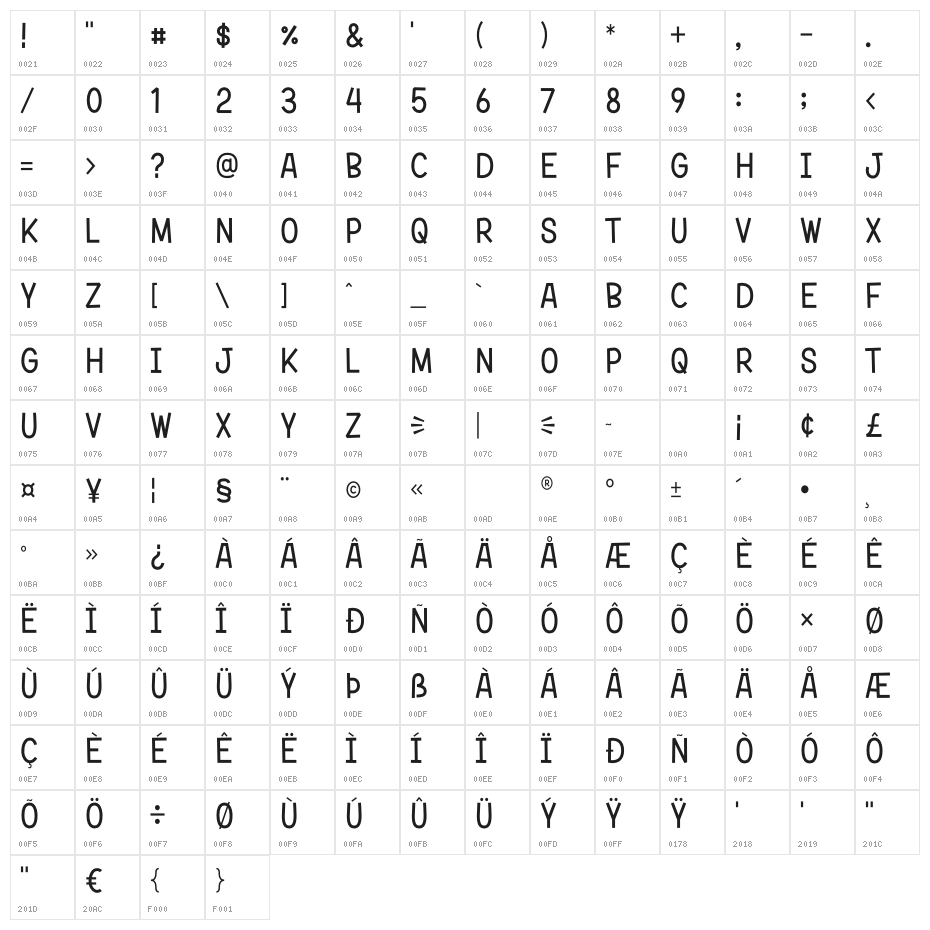
Jelfish Font
Jelfish Description
This font features a playful and slightly irregular style, characterized by its bold and rounded letterforms. The uppercase and lowercase letters maintain a consistent width, giving it a uniform appearance. The numbers are clear and easy to read, with a similar rounded style. Special characters are well-defined, adding to the font's versatility. The overall design is casual and friendly, making it suitable for projects that require a touch of whimsy and approachability.
| Overall Style | Playful |
| Proposed Projects | Ideal for children's books, playful branding, casual invitations, and creative posters. |